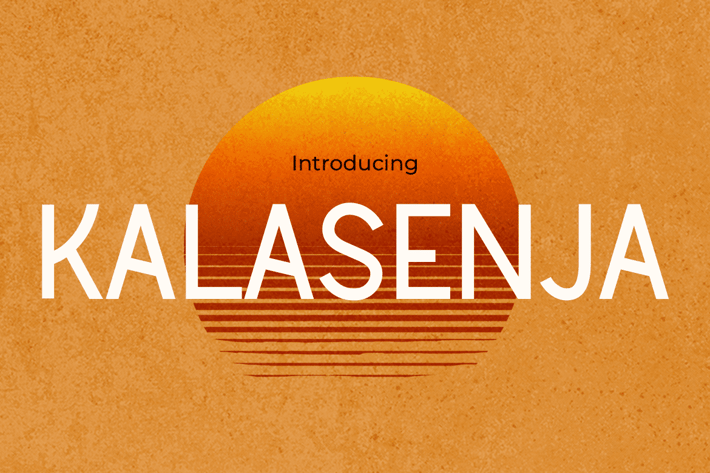
Kalasenja - Retro Sans Serif font
Kalasenja - Retro Elegant Display
KALASENJA is a retro-inspired display typeface with long-tail curves and thin high-contrast strokes—ideal for expressive branding that merges the elegance of modern editorial design with nostalgic 70s aesthetics. With its clean vertical stems, generous spacing, and sun-drenched visual charm, this font feels both structured and emotionally warm.
Designed to evoke calm, style, and wanderlust, Kalasenja shines in lifestyle blogs, resort branding, poster headlines, or anything craving that laid-back vintage modernism. The letterforms feature minimalist geometry and soft terminals that make every word feel balanced and beautiful.
Whether you're designing a retro-inspired travel magazine, a slow-living blog logo, or dreamy YouTube thumbnails, Kalasenja brings instant visual poetry. Its lightweight yet confident tone enhances readability while remaining stylish and editorial-ready—perfect for creators who seek calm sophistication and emotional clarity in their branding and layout designs.
Key Features
Perfect for modern-retro storytelling:
- High contrast, thin strokes ideal for large-size titles
- Elegant spacing that adds rhythm to words
- Designed for emotional, nostalgic, and refined brands
Great for:
- Editorial layout & blog headers
- Travel magazines & resort branding
- Instagram quotes & lifestyle posters
- Book covers & packaging with soul